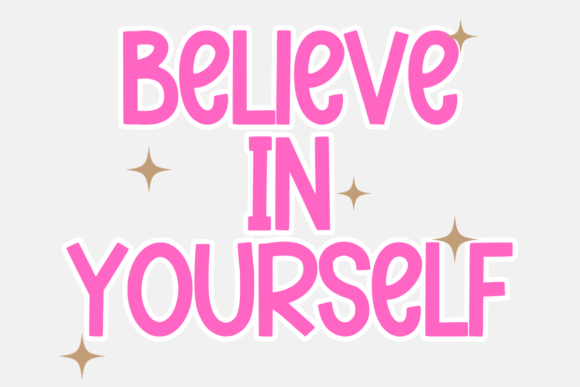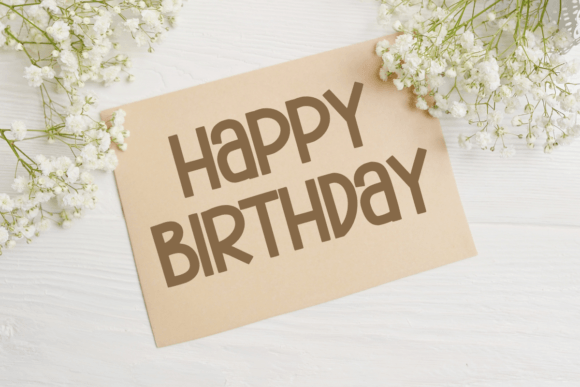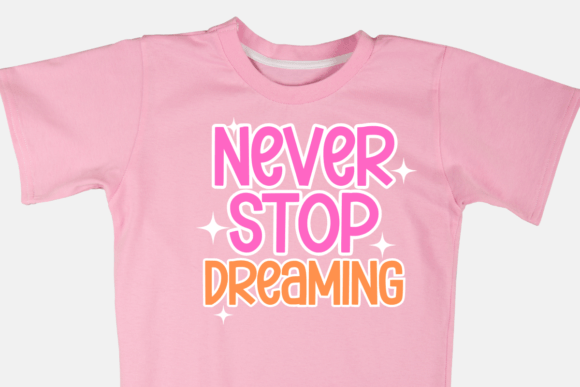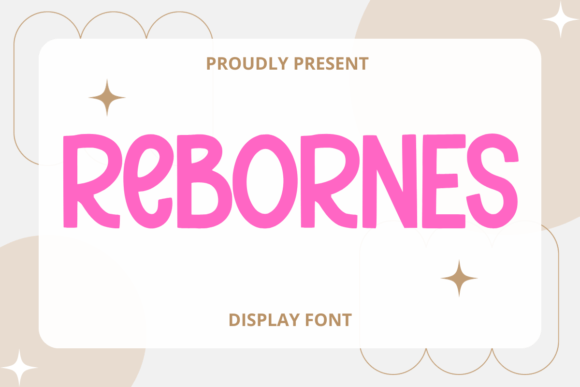
Introduction to Rebornes Font
Rebornes is a Font with a modern style based on bold and minimalist shapes touched in a modern and elegant style.
This font is very suitable for various creative needs such as printing, books, titles, t-shirts, headlines, photography, decoration, branding, logos, and others .
Key Features of Rebornes Font